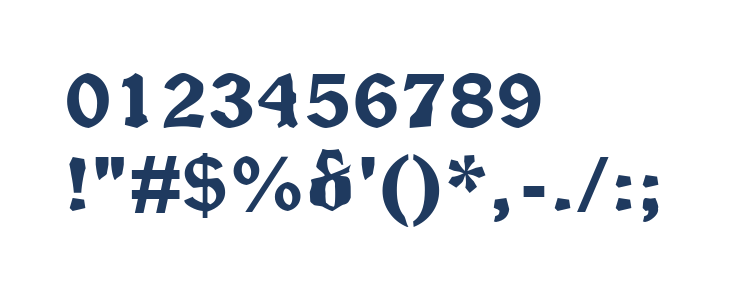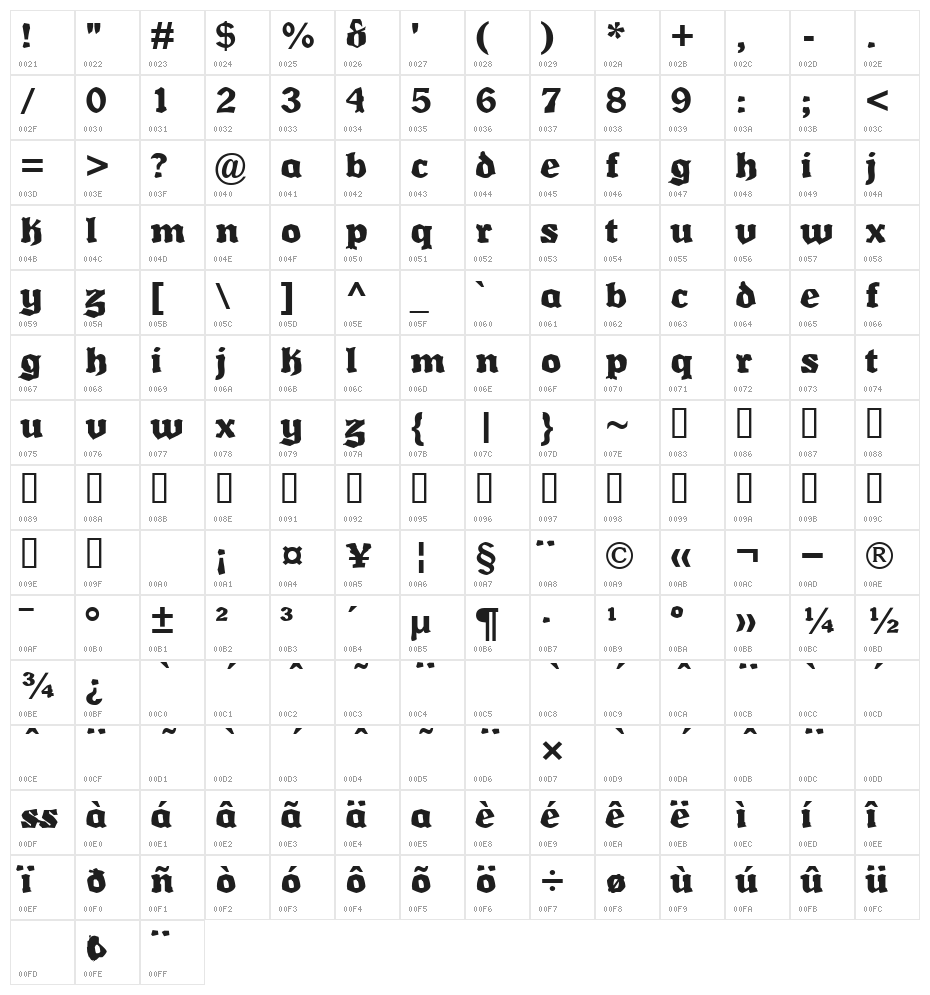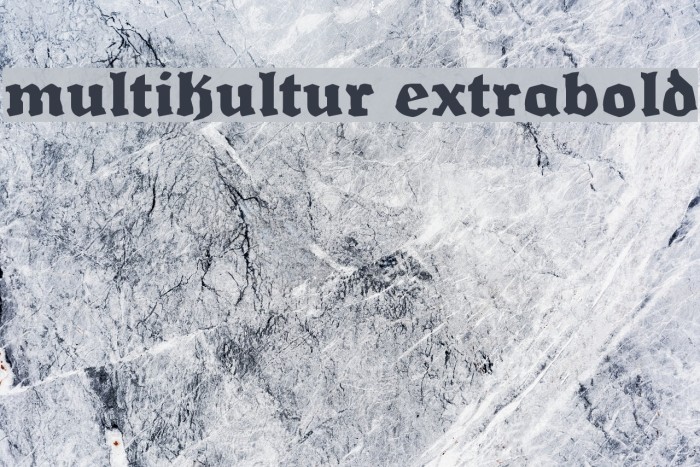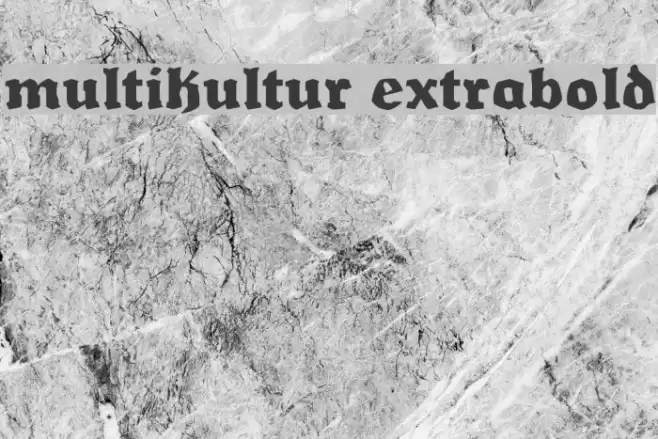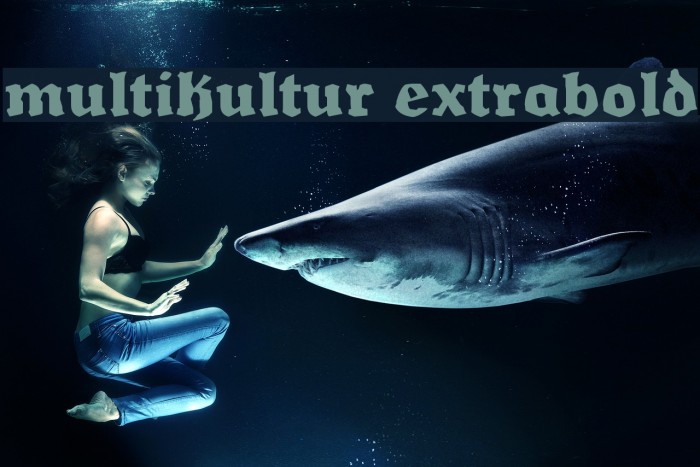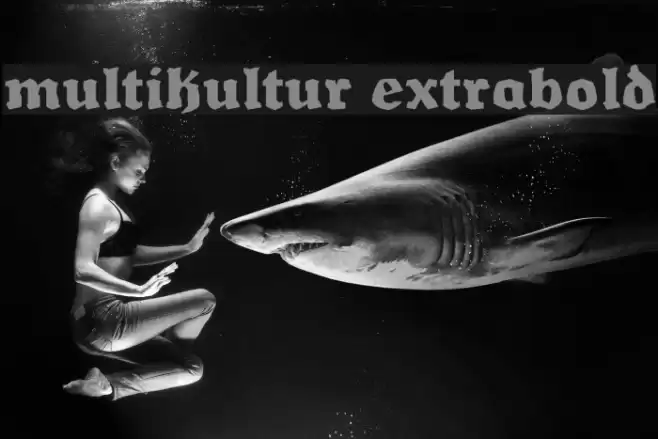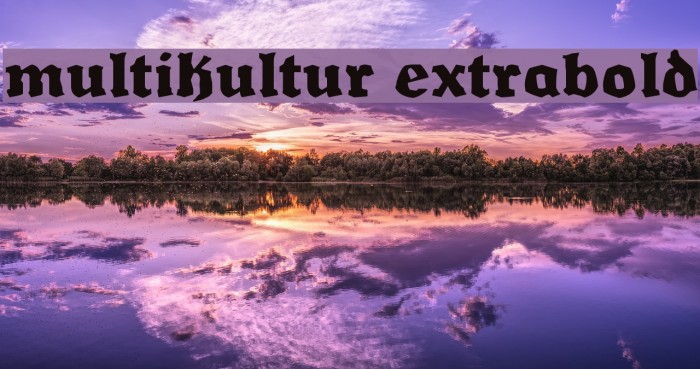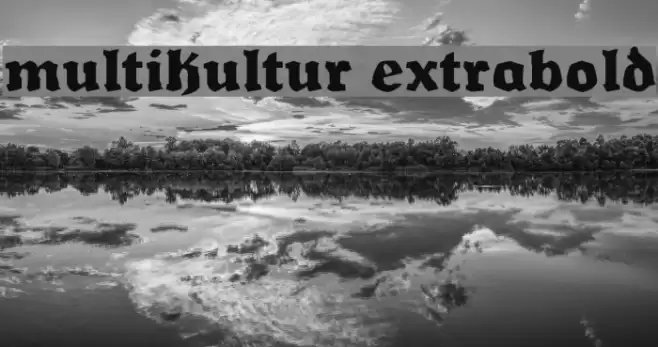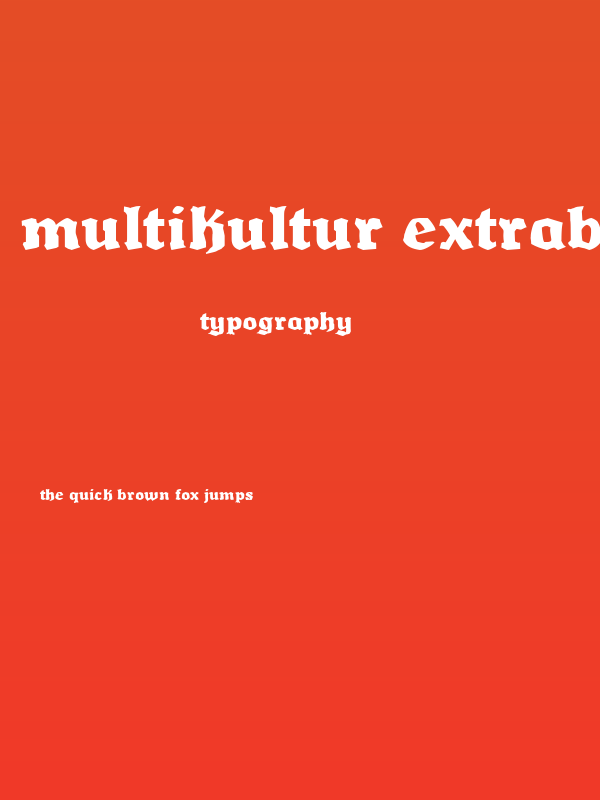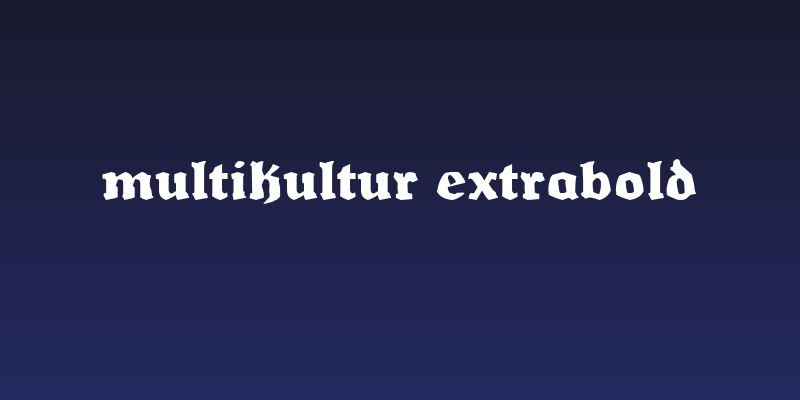
Multikultur ExtraBold Font
Multikultur ExtraBold Description
This font features a bold, dramatic style with a strong presence, characterized by its thick strokes and sharp angles. The design is reminiscent of traditional blackletter typefaces, offering a gothic and medieval aesthetic. Each character is distinct, with a high level of detail that enhances its decorative appeal. The uppercase and lowercase letters maintain a consistent style, while the numerals and special characters complement the overall design. The font's boldness makes it suitable for impactful headlines and titles, where a strong visual statement is desired.
| Overall Style | Gothic |
| Proposed Projects | Perfect for projects requiring a medieval or gothic theme, such as book covers, posters, or branding for historical events. |